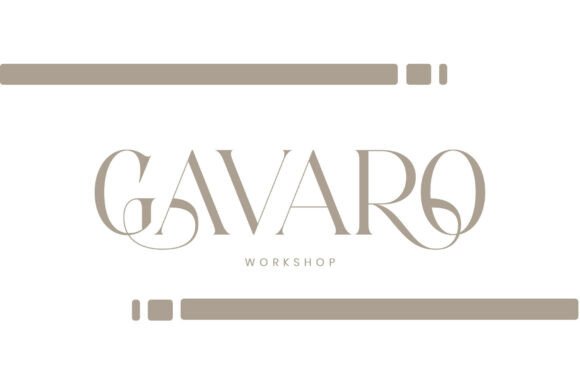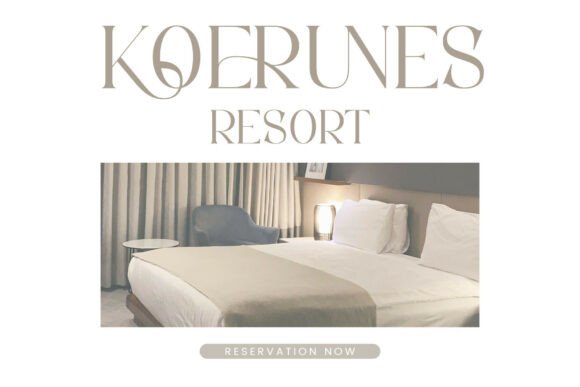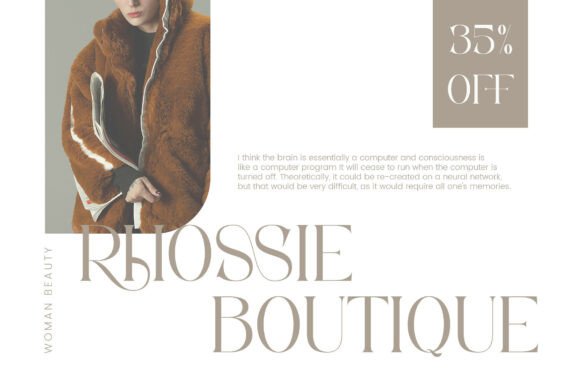
Introduction to Hugas Font
Do you ever find yourself stuck in front of your computer screen, staring at a blank canvas, waiting for inspiration to strike? That’s where a good design resource comes in – and we’ve got just the thing. As designers, we know that having the right tools can make all the difference in bringing our creative projects to life. That’s why we’re excited to introduce you to the Hugas Font, a stylish ligature typeface that’s perfect for any design endeavor.
With its minimalist aesthetic and clean lines, the Hugas Font is a versatile design resource that’s sure to elevate your work. Whether you’re creating templates, brochures, videos, or advertising branding, this high-quality font is the perfect addition to your toolkit. And the best part? It’s available for free download, making it a valuable resource for designers of all levels.
- Unique, handcrafted design that adds a personal touch to any creative project
Honest Review: Hugas Font
As a designer, I’m always on the lookout for high-quality design resources to elevate my creative projects. Recently, I had the chance to try out the Hugas Font, and I’m excited to share my honest review with you.
- ✨ The font’s unique and playful style makes it perfect for modern design projects, especially those that require a touch of whimsy.
- ⚠️ The font’s range is limited, with only a few styles and weights available.
- ⚠️ Some users may find the font’s complexity overwhelming, especially when working with complex design projects.
Overall, I think the Hugas Font is a solid addition to any designer’s toolkit. While it may not be perfect, its unique style and free download option make it a great resource for creative projects. With a little creativity, you can make the most of this design resource and take your designs to the next level.
To get the most out of Hugas Font, experiment with different font sizes, colors, and styles to create a unique and eye-catching design. You can also use it in combination with other design resources to create a cohesive and professional look.
Hugas Font is ideal for various design projects, including social media graphics, presentations, logos, typography-based artwork, and documents. Its high-quality design and transparent background make it a versatile and useful design resource.